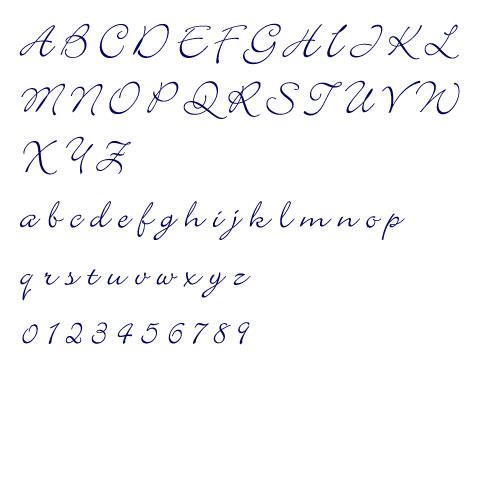
Fireside Threads is happy to present Bickley Script Embrilliance machine embroidery font which has Script-style machine embroidery font ideal for projects like personalized gifts and home decor. The flowing design add a personal touch to towels and tote bags. Available in BX font and Embrilliance formats. included. If you would like to view more embroidery fonts and alphabets please search our embroidery fonts page.